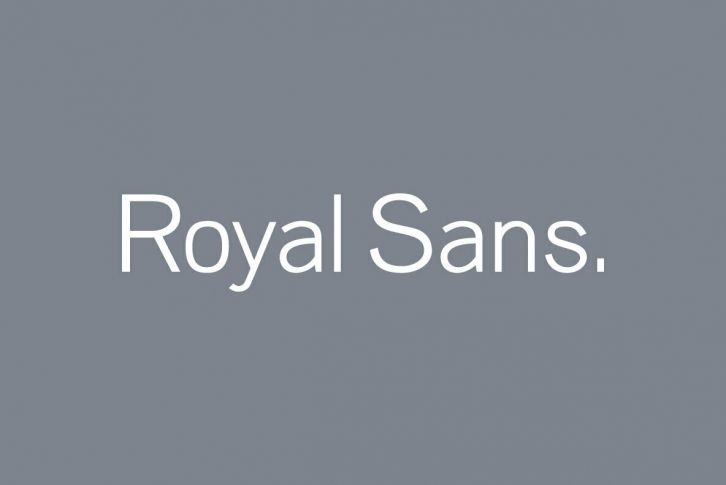
RMU Royal Sans is an early 20th century sans serif which was first released as Wotan by Wagner & Schmidt in 1914. The regular version is the most beautiful and characteristic of this family which contains several styles of different weights and widths.